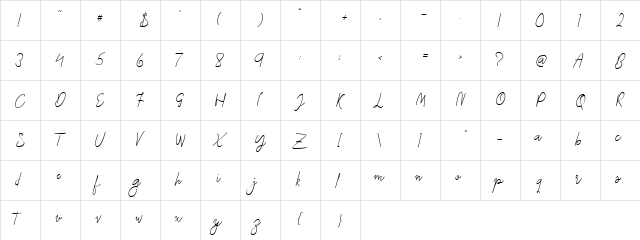
Macarons Regular
Design Context for Macarons Typeface
Macarons is a composed and adaptable typeface that performs quietly and consistently across a wide range of design contexts.